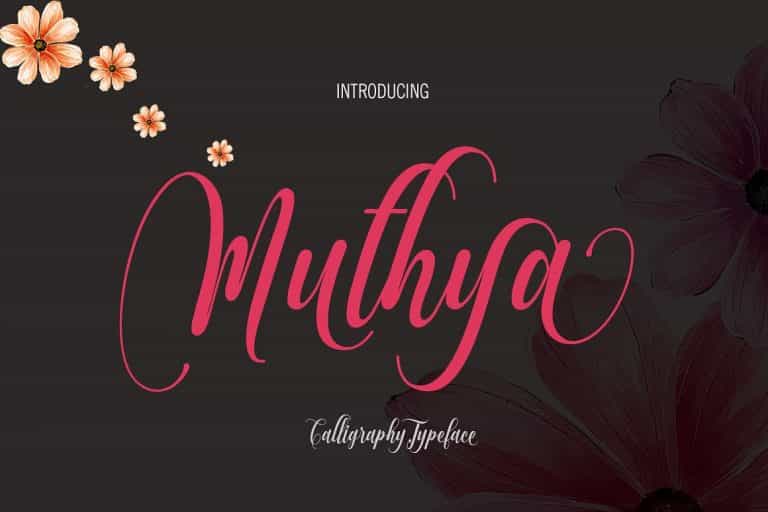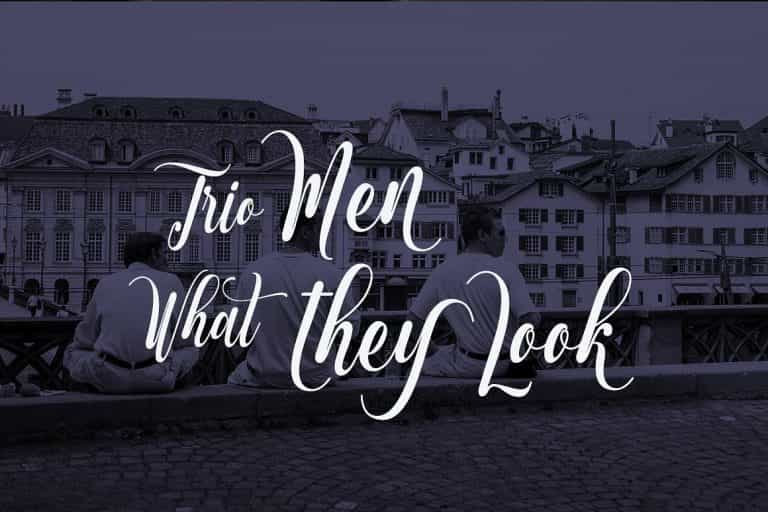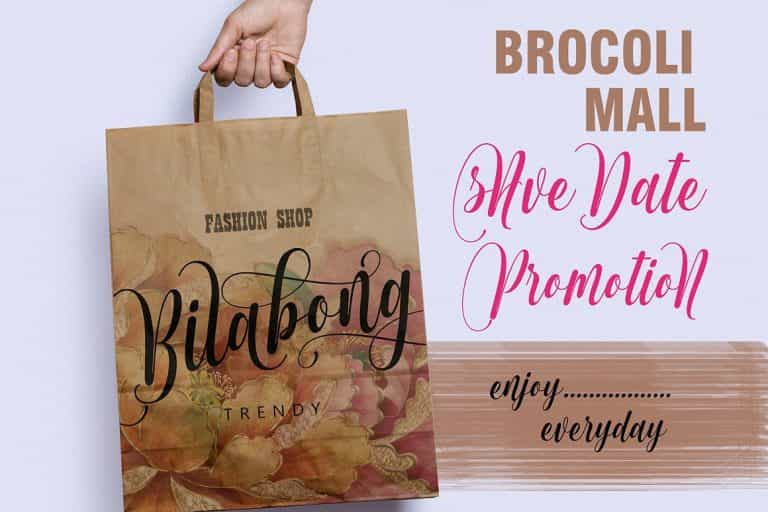
Meet Muthya, a wet inky calligraphy script font that looks like it was written by hand and has an old school feel. Muthya is a font that imitated the hand by having the character up and down like a dancer. Muthya has a very distinct way of calligraphy that is perfectly matched with the modern design works.